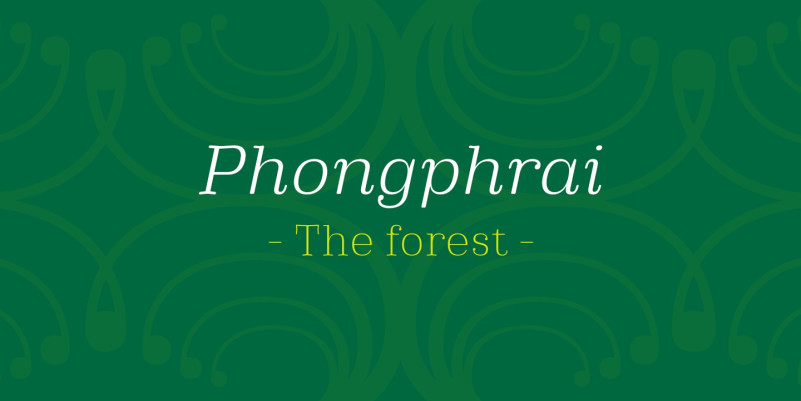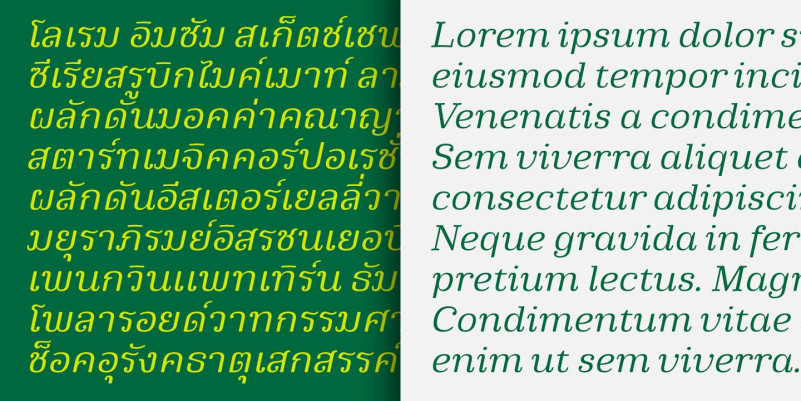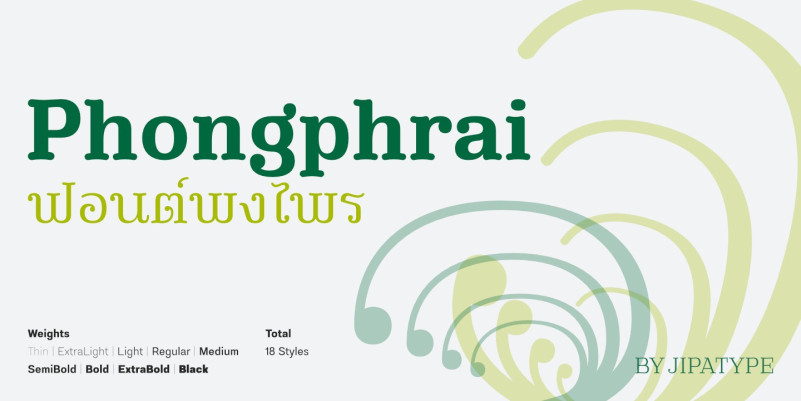
Phongphrai Font
Phongphrai Font, Classic Elegant Serif – Vintage Fantasy Font – Royal and Luxury Font, is perfect for your upcoming projects such as luxury logo and branding, classy editorial design, woman magazine, cosmetic brand, fashion promotional, art gallery branding, museum, boutique branding, stationery design, blog design, modern advertising design, card invitation, art quote, home decor, fantasy movie/game, novel/book/cover title, special events, and any more.